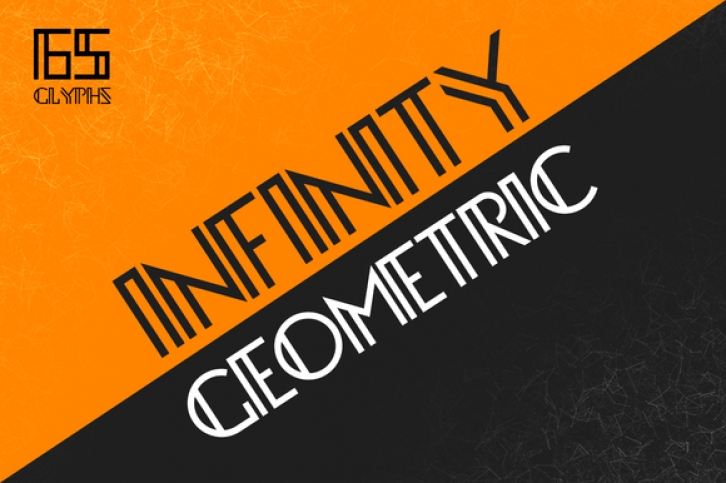
This typeface has a geometric style and it is perfect for badges, logos, headlines and display. The font has uppercase letters, numbers and some of the base use glyphs.